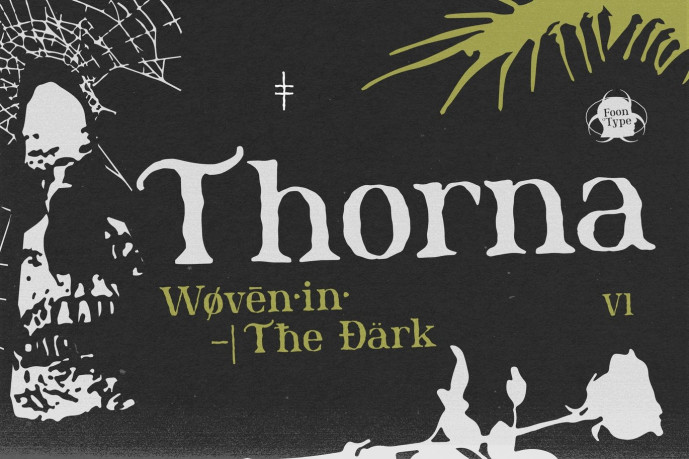
Thorna Font is a dark fantasy serif typeface that blends gothic elegance with a mysterious, enchanting atmosphere. Designed with distinctive curves, sharp details, and timeless character. Perfect for fantasy and horror book covers, movie and game titles, dark-themed branding, album artwork or band logos.